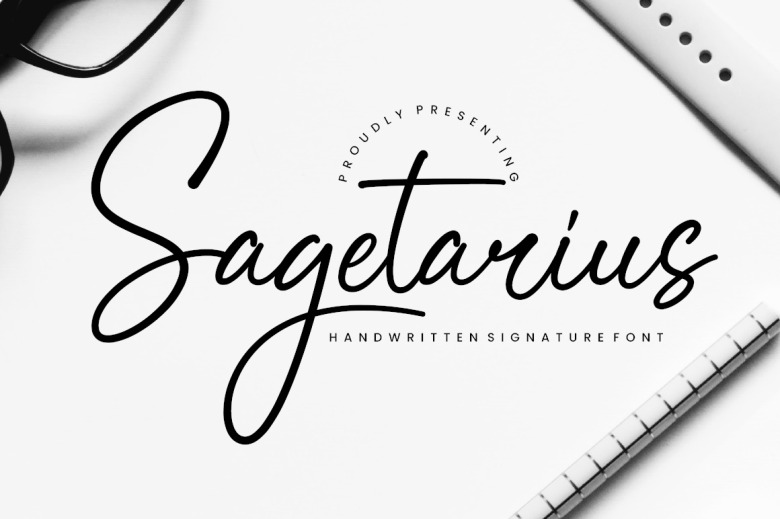
Sagetarius Font
Sagetarius by Rasdi Type is a unique, stylish and modern Handwriting Font Not only does that resemble a signature, the font has been designed to include special & changing ligatures. It has thin and delicate characters that makes it perfect for many types of designs.
Sagetarius Handwritten Script Font